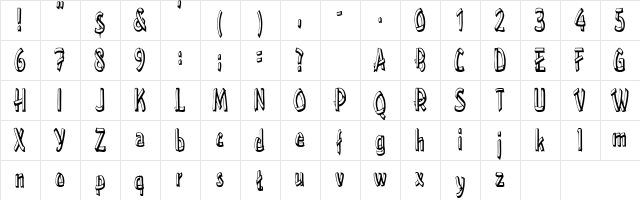
TreehouseCondensed Regular
TreehouseCondensed is a composed and adaptable typeface that performs quietly and consistently across a wide range of design contexts. Its narrow stance lets it pack a punch even in space-constrained designs.